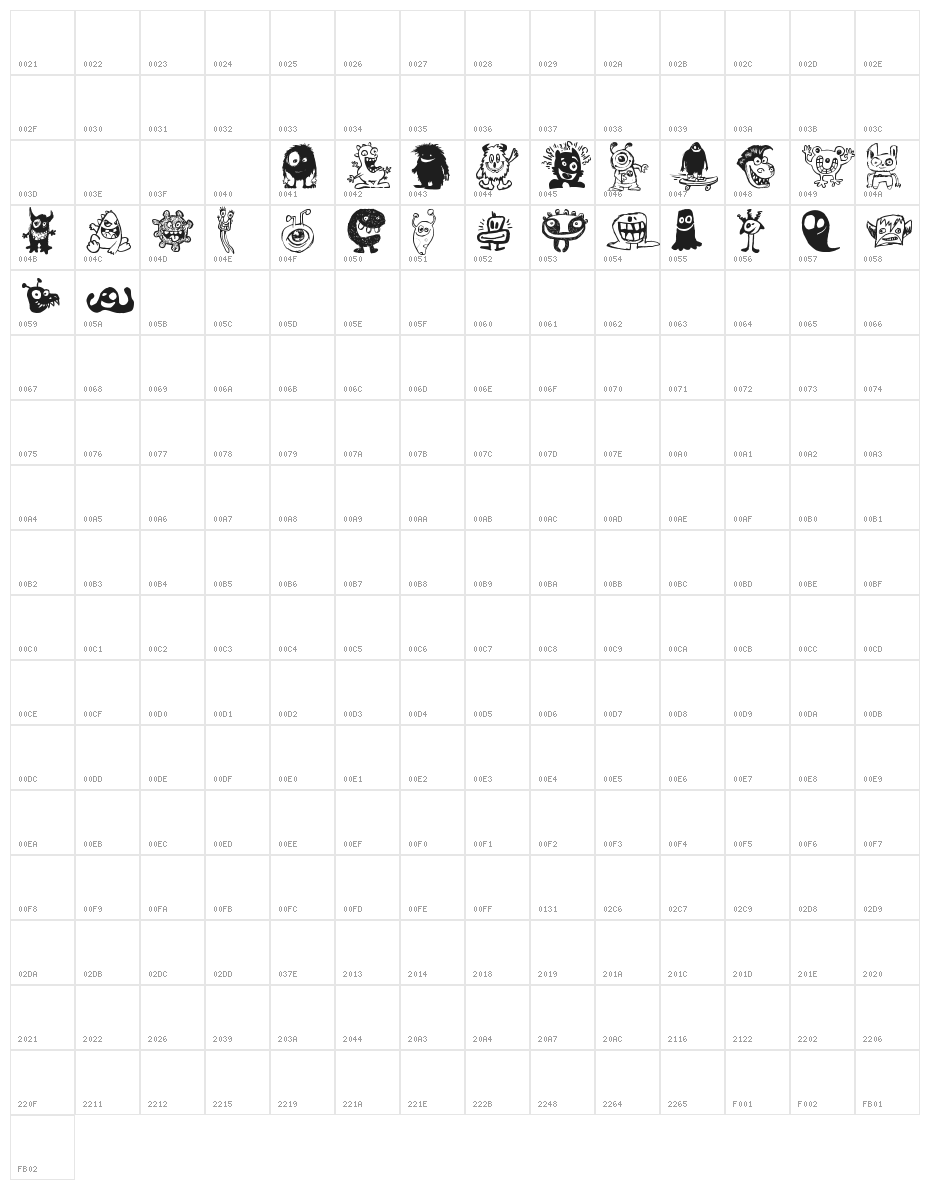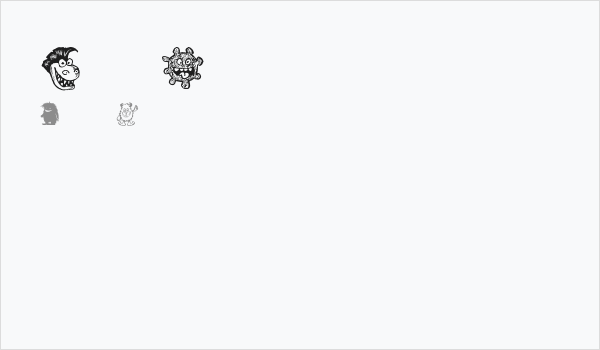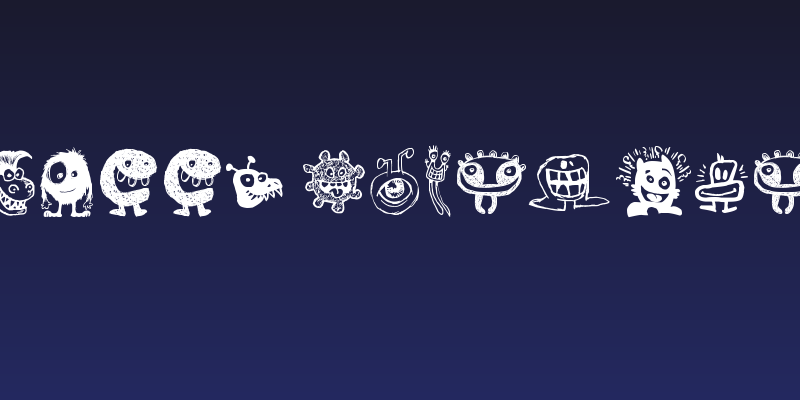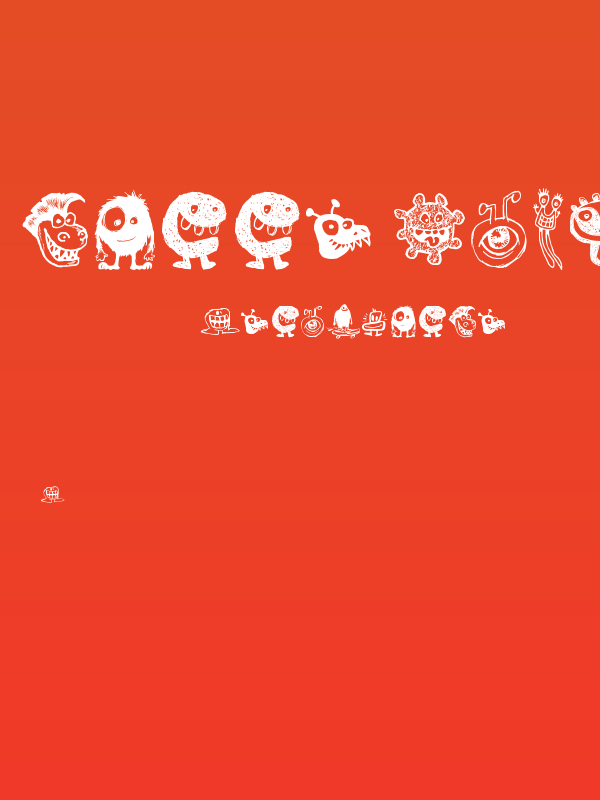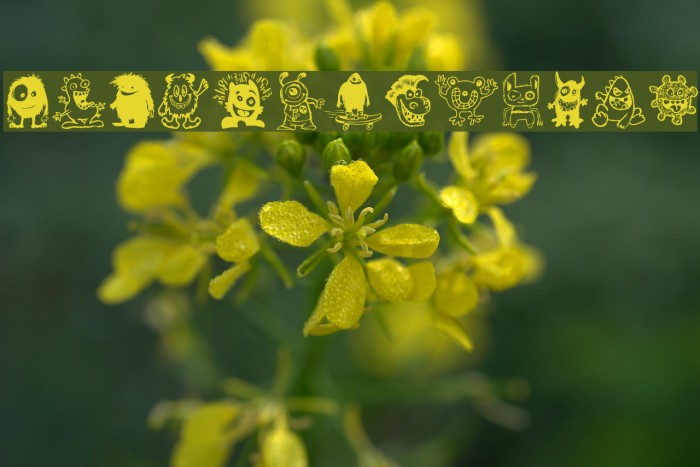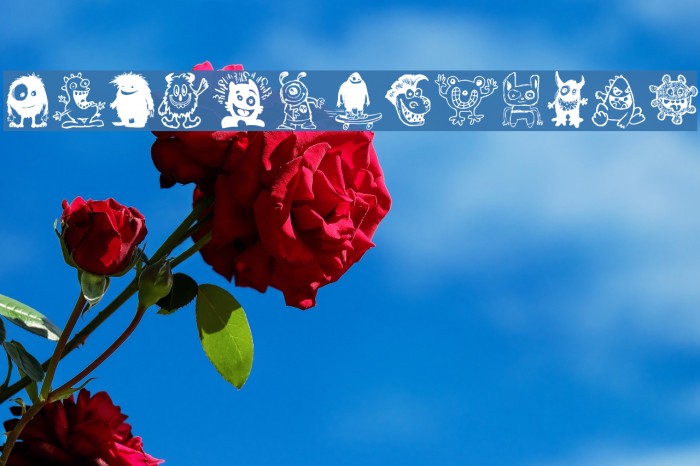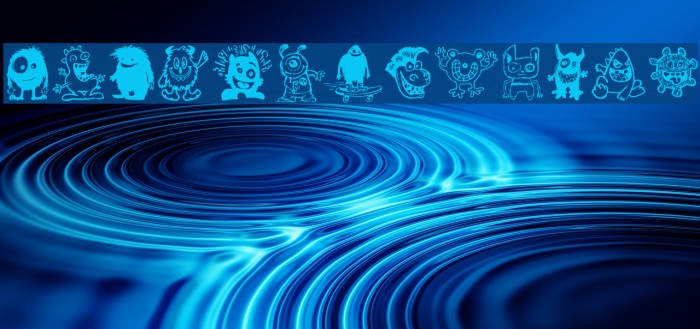
Happy Monsters Font
Happy Monsters Description
This collection features a whimsical array of monster illustrations, each with its own unique personality and charm. The characters are playful and imaginative, showcasing a variety of shapes, expressions, and quirky details that make them stand out. These designs are perfect for adding a fun and creative touch to any project, appealing to both children and adults with their lighthearted and humorous style.
| Use Case | Illustrations, Branding, Invitations |
| Proposed Projects | Ideal for children's books, playful branding, party invitations, and educational materials. |